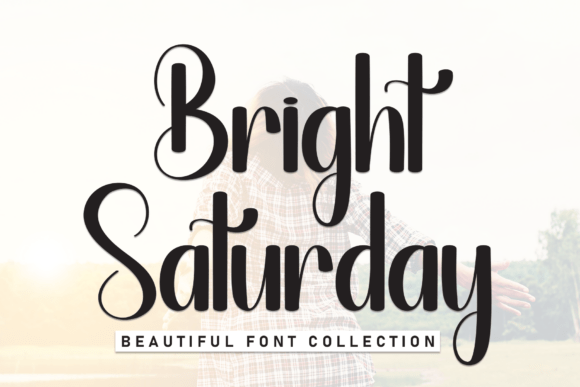
The Magic of Bright Saturday Font: Elevate Your Designs with Elegance and Playfulness
I’ll never forget the time I was working on a wedding invitation project, and my client asked for a font that was both elegant and playful. I scoured the internet, tried countless fonts, but nothing seemed to fit the bill. That was until I stumbled upon Bright Saturday Font. With its flowing curves and natural rhythm, it added a personal touch to the invitation that made it truly special. In this article, I’ll share with you why Bright Saturday Font has become a staple in my design toolkit and how you can make the most of it in your own projects.
An Honest Review of Bright Saturday Font
• ✨ Elegant and playful at the same time – perfect for a wide range of design projects
• ✅ Flowing curves and natural rhythm that add a personal touch to any text
• 💫 Highly legible, even at small font sizes
• 🎨 Versatile and works well with a variety of design styles
While Bright Saturday Font is an amazing addition to any design project, there are a few things to keep in mind:
• 🤔 Some characters may require manual kerning for optimal spacing
• ⚠️ Not suitable for body text or long blocks of text due to its script nature
The Story Behind Bright Saturday Font
Bright Saturday Font was designed by a team of typographers who wanted to create a font that captured the essence of a sunny Saturday morning – bright, cheerful, and full of life. Inspired by the flowing curves of handwritten scripts and the playfulness of modern typography, Bright Saturday Font was born. The design team poured their hearts into crafting a font that’s both elegant and approachable, making it perfect for a wide range of design projects.
Font Name Bright Saturday Font
Author Roronoa zoro.S.P.D
Q: What type of projects is Bright Saturday Font best suited for?
A: Bright Saturday Font is perfect for creative projects, such as invitations, branding, social media designs, and party decorations.
Q: Does Bright Saturday Font come with OpenType features?
A: Yes, Bright Saturday Font includes OpenType features, such as glyphs and stylistic alternates, that allow you to customize your text and add more personality to your designs.
Q: Is Bright Saturday Font suitable for body text or long blocks of text?
A: No, Bright Saturday Font is a script font that’s best suited for headlines, titles, and short blocks of text. It’s not recommended for body text or long blocks of text due to its script nature.